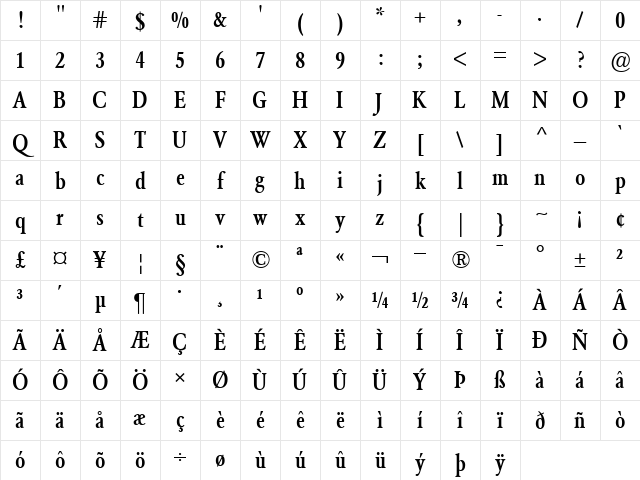
Complete GaramondBE-CondensedMedium Medium glyph index. Displaying only characters natively supported by GaramondBE-CondensedMedium Medium font.
GaramondBE-CondensedMedium is a composed and adaptable typeface that performs quietly and consistently across a wide range of design contexts. Its narrow stance lets it pack a punch even in space-constrained designs.